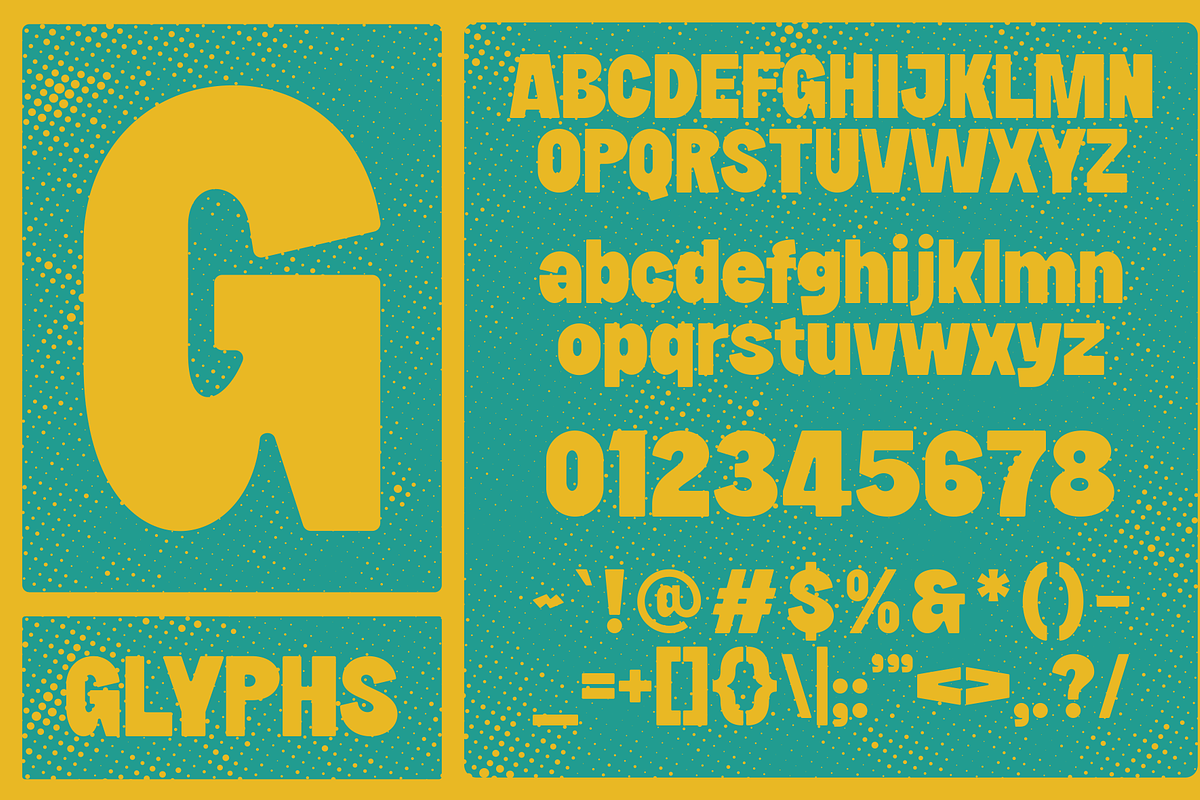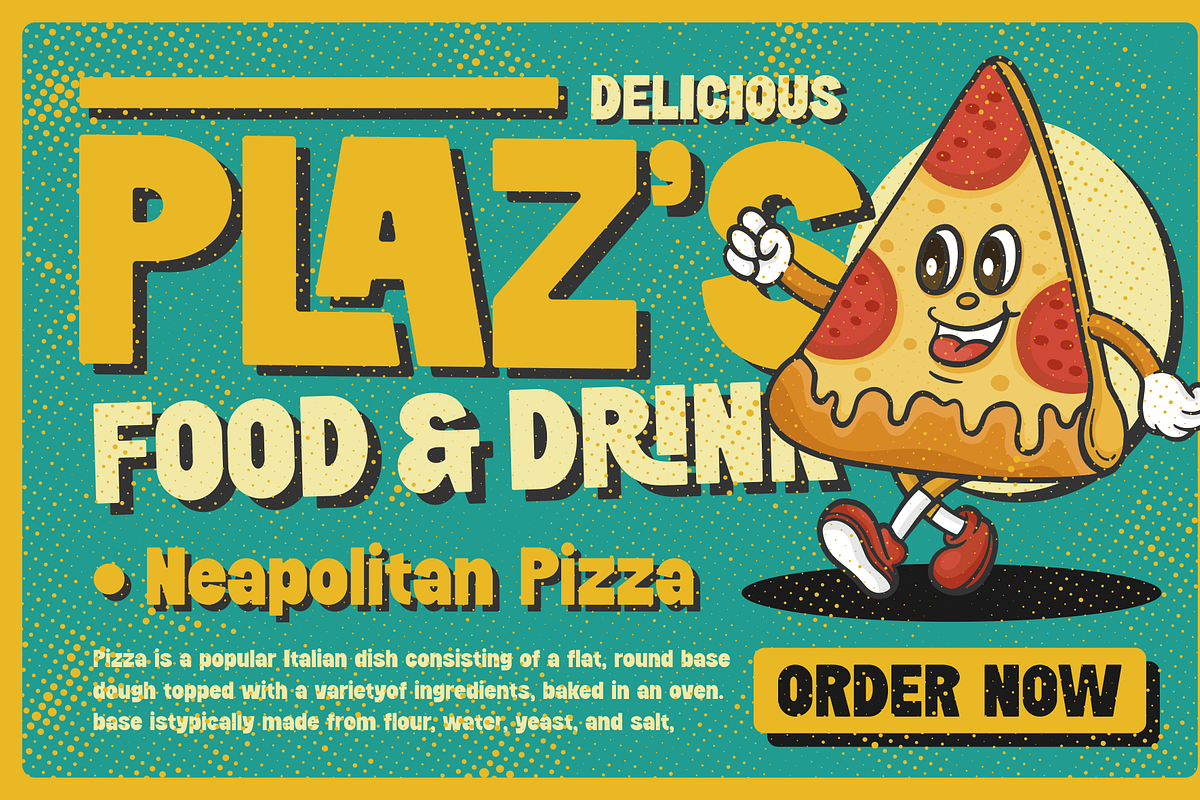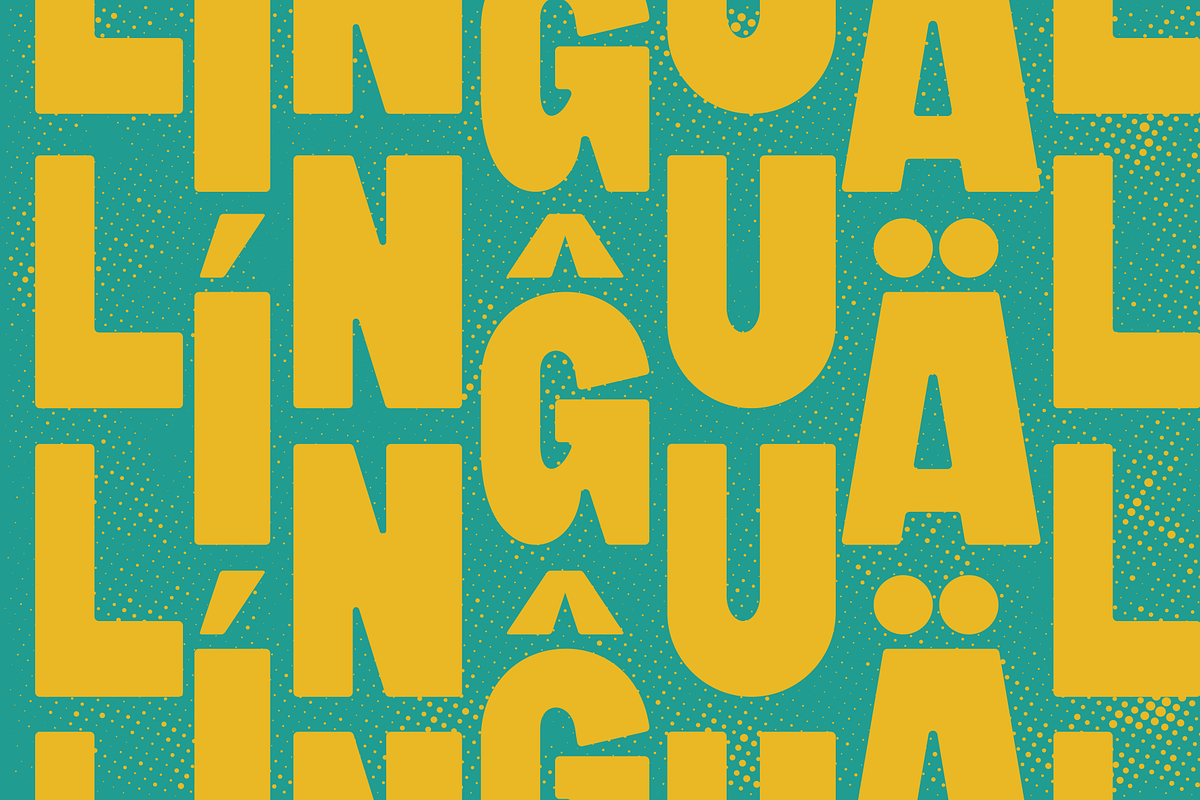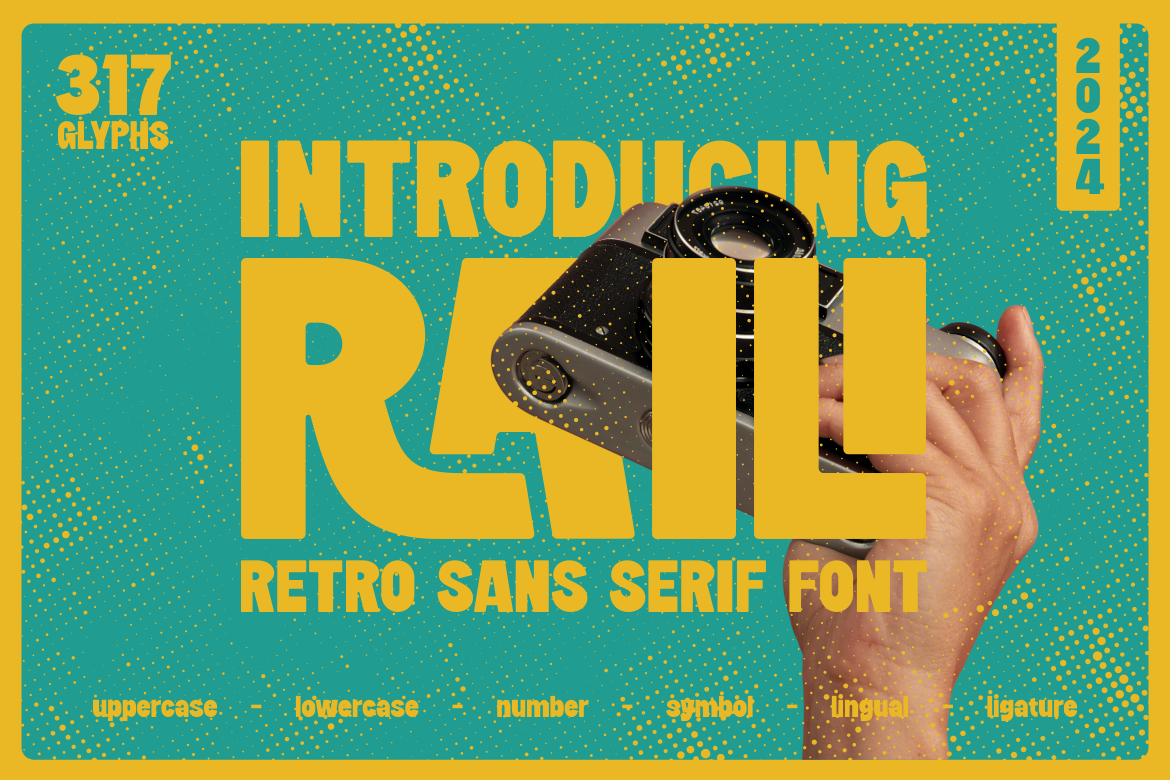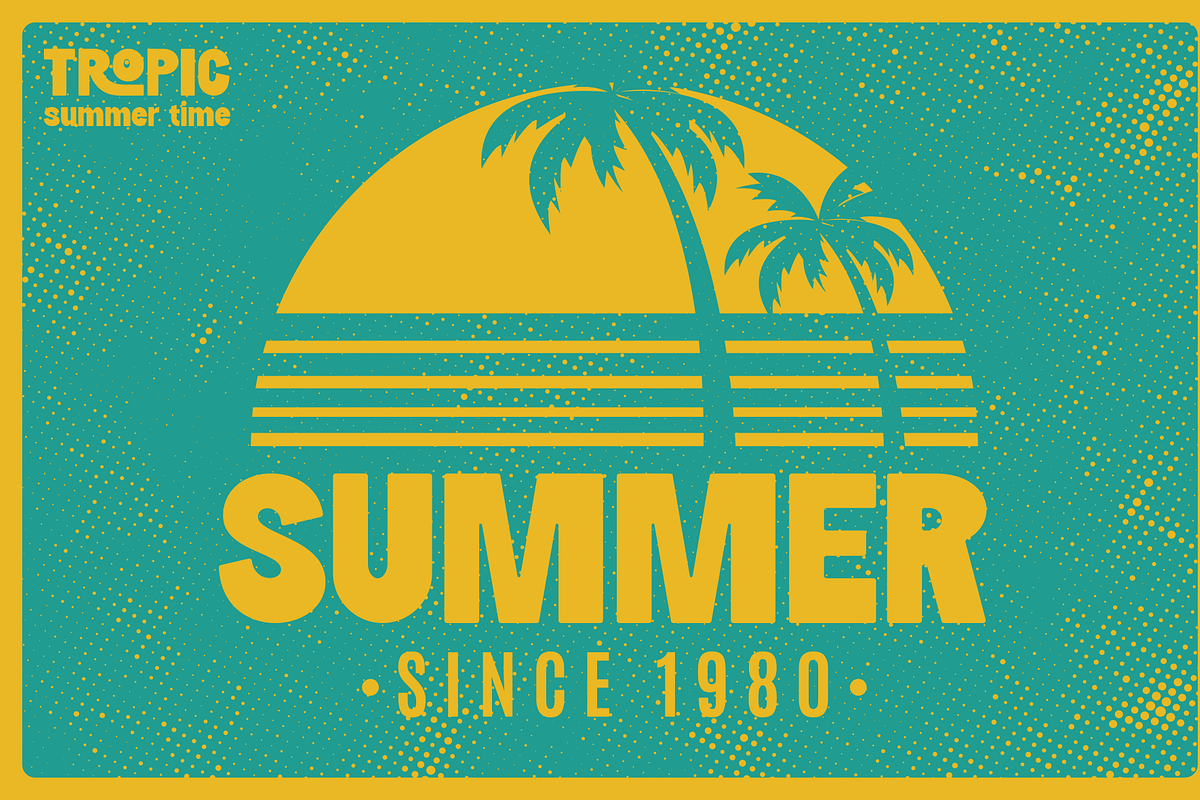
Raili - Retro Sans Serif Font
Introducing our new product *Raili - Retro Sans Serif Font
Raili - Retro Sans Serif Font is a bold and authentic display font. The font is suitable for any branding project like logo, Template Design, esport, and many more. outstanding in a wide range of contexts.